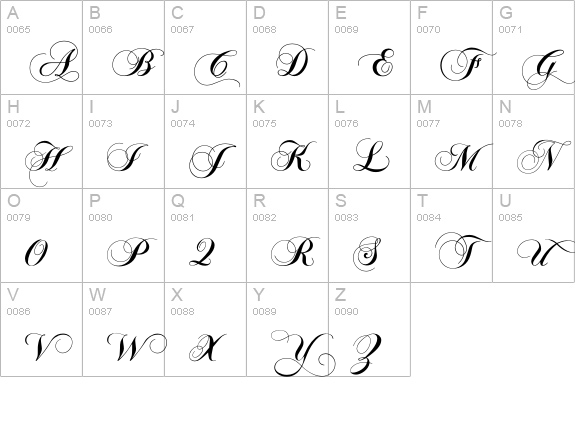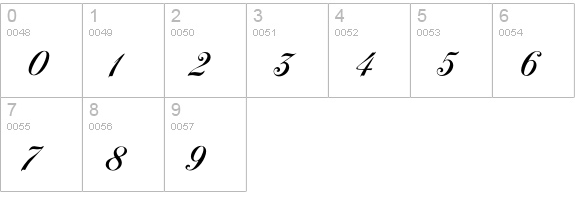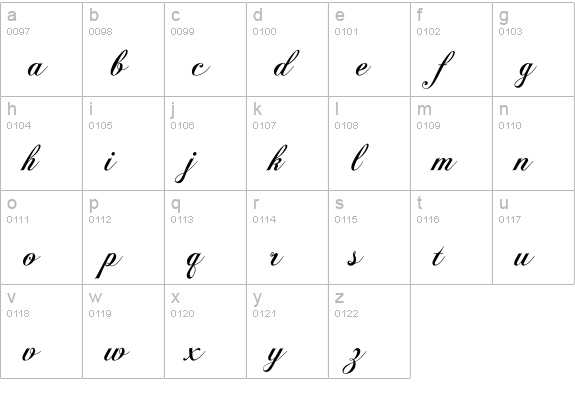
ChopinScript Font Details
ChopinScript font is a stunning and elegant typeface that exudes a sense of timeless beauty and sophistication. Inspired by the delicate and flowing handwriting of the renowned composer Frédéric Chopin, this script font captures the essence of romance and grace. With its exquisite letterforms and intricate strokes, ChopinScript font adds a touch of elegance to any design project. Whether you're creating wedding invitations, love letters, or branding materials for luxury brands, this font is sure to make a lasting impression. One of the best parts about ChopinScript font is that it is free! Yes, you read that right. This beautiful typeface is freely available to download at FontsMarket.com. You can easily access and use this font in your personal and commercial projects without any restrictions or limitations. So why wait? Download ChopinScript font today and let its graceful curves and flowing lines elevate your designs to new heights. Whether you're a professional designer or a hobbyist, this font is a must-have in your collection. Embrace the beauty of this free font and watch your creations come to life with a touch of elegance and sophistication.